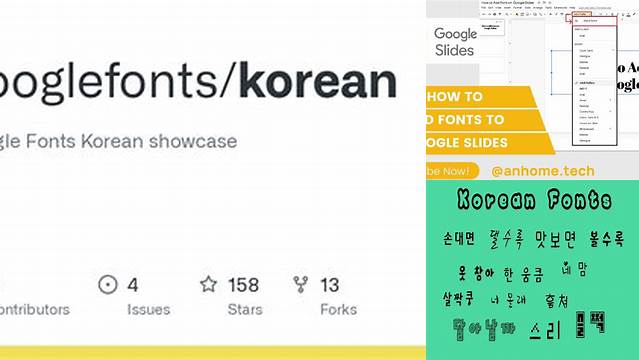
Korean Fonts In Google Slides: The Ultimate Guide
Hey guys! Ever found yourself needing to add a touch of Korean flair to your Google Slides presentation? Maybe you're giving a presentation on Korean culture, language, or even just want to spice up your slides with some cool-looking characters. Whatever the reason, finding the right Korean fonts for Google Slides can be a bit of a quest. But don't worry, we've got you covered! This guide will walk you through everything you need to know, from understanding Korean fonts to actually implementing them in your presentations. Let's dive in!
1. Understanding Korean Script and Fonts
Before we jump into specific fonts, it's crucial to understand the Korean writing system, Hangul. Unlike the Latin alphabet we're used to, Hangul is an alphabetic system grouped into syllable blocks. This means each character isn't just a single letter but a combination of consonants and vowels forming a syllable. Because of this structure, Korean fonts often have a distinct appearance and require careful consideration for readability and aesthetics. When choosing a Korean font, you need to consider its style (like serif or sans-serif), its weight (boldness), and how well it renders on different screen sizes. For example, a font that looks great on your computer might appear pixelated on a projector. Also, some fonts are better suited for body text while others are ideal for headings. Understanding these nuances will help you make the best choice for your presentation. Now, why is this important for Google Slides? Well, Google Slides uses web fonts, which means the fonts are loaded from Google's servers. Not all fonts support Korean characters, so you need to pick one that does! Let's move on to exploring the best options available.
2. Top Korean Fonts Available in Google Slides
Okay, so you're ready to jazz up your Google Slides with some Korean text, but which fonts should you use? Luckily, Google Slides has a decent selection of Korean fonts built right in! One of the most popular choices is Noto Sans KR. This font is part of Google's Noto font family, which aims to support all the world's scripts. It's a clean, sans-serif font that's super readable and works well for both headings and body text. Another great option is Nanum Gothic. This font has a slightly softer, more rounded feel, making it a good choice if you want a more friendly and approachable vibe. It's also available in various weights, giving you some flexibility in your design. Then there's Nanum Myeongjo, a serif font that adds a touch of elegance to your slides. Serif fonts are generally better suited for longer blocks of text, so consider using this one for your main content. And finally, don't forget Spoqa Han Sans Neo. This font is modern, geometric, and highly legible, making it ideal for professional presentations. Remember, the best font for you will depend on the overall style and tone of your presentation. So, experiment with a few different options and see what looks best!
3. How to Add Korean Fonts to Google Slides
4. Using Korean Fonts Effectively in Presentations
Okay, so you've got your Korean fonts all set up in Google Slides. Awesome! But just adding Korean text isn't enough; you need to use it effectively to make your presentation shine. One of the most important things is readability. Make sure your font size is large enough for your audience to see, especially if you're presenting in a large room. A good rule of thumb is to use at least 24 points for body text and 36 points for headings. Also, consider the contrast between your text and background colors. Dark text on a light background is usually the easiest to read. Next, think about the overall tone and style of your presentation. If you're giving a formal presentation, you might want to stick to a more traditional font like Nanum Myeongjo. But if you're going for a modern and casual vibe, Noto Sans KR or Spoqa Han Sans Neo might be a better choice. Don't be afraid to use different fonts for headings and body text to create visual interest. Just make sure the fonts you choose complement each other. And finally, remember that less is often more. Don't overcrowd your slides with too much text. Use bullet points, images, and other visuals to break up the text and keep your audience engaged. Let's look at some specific scenarios where you might use Korean fonts.
5. Scenarios for Using Korean Fonts in Google Slides
There are tons of situations where using Korean fonts in Google Slides can really enhance your presentation! If you're giving a presentation about Korean culture, using Korean fonts is a no-brainer. It adds authenticity and helps immerse your audience in the topic. For example, if you're talking about Korean history, you might use Nanum Myeongjo to give your slides a classic, scholarly feel. If you're presenting about modern Korean pop culture (like K-pop or K-dramas), you could use a more modern font like Spoqa Han Sans Neo to reflect the contemporary vibe. Another common scenario is when you're teaching Korean language. Using Korean fonts is essential for displaying Hangul characters correctly. You can use different fonts to illustrate different writing styles or to emphasize key vocabulary words. If you're creating a presentation for a Korean-speaking audience, using Korean fonts is obviously crucial. It shows that you've put in the effort to tailor your presentation to their language and culture. And finally, even if your presentation isn't specifically about Korea, adding a touch of Korean text can add a unique and eye-catching element. Just be sure to use it sparingly and appropriately! Let's delve into some common issues you might encounter.
6. Troubleshooting Common Issues with Korean Fonts in Google Slides
Okay, so you've tried adding a Korean font to your Google Slides, but something's not quite working right. Don't panic! There are a few common issues that people run into, and they're usually pretty easy to fix. One of the most common problems is that the Korean characters aren't displaying correctly. They might show up as boxes or question marks. This usually means that you've selected a font that doesn't support Korean characters. Double-check that the font you've chosen is actually a Korean font and that it's properly installed in Google Slides (as we discussed earlier). Another issue you might encounter is that the font looks pixelated or blurry. This can happen if you're using a font that's not optimized for web display or if the font size is too small. Try using a different font or increasing the font size to see if that helps. Sometimes, the font might look different on different computers or devices. This is because Google Slides uses web fonts, which means the font is loaded from Google's servers. If a particular font isn't available on a user's device, Google Slides will substitute it with a similar font. To avoid this issue, it's a good idea to test your presentation on different devices before you present it. If you're still having trouble, Google's help resources are always a great place to look for answers! Now, let's talk about some advanced techniques you can use.
7. Advanced Techniques for Using Korean Fonts
Ready to take your Korean font game to the next level? There are some cool advanced techniques you can use to make your presentations even more visually appealing and effective. One technique is to combine different Korean fonts to create visual contrast. For example, you could use a bold sans-serif font for your headings and a more elegant serif font for your body text. Just make sure the fonts you choose complement each other and don't clash. Another technique is to use font styling options like bold, italics, and underlining to emphasize certain words or phrases. But be careful not to overdo it! Too much styling can make your text look cluttered and hard to read. You can also adjust the line spacing and character spacing to improve readability. Wider line spacing can make your text look less dense and easier on the eyes, while adjusted character spacing can help prevent letters from crowding each other. Finally, consider using Korean calligraphy fonts for special occasions or to add a touch of traditional Korean art to your slides. These fonts often have a unique and artistic appearance, but they can be less legible than standard fonts, so use them sparingly. Let's move on to some tips for font pairing.
8. Pairing Korean Fonts with Other Fonts
Font pairing, guys, is an art! Combining Korean fonts with other fonts (especially Latin fonts) can create a visually harmonious and engaging presentation. But it's also easy to go wrong if you're not careful. The key is to choose fonts that complement each other in terms of style, weight, and overall feel. One general rule of thumb is to pair a sans-serif font with a serif font. For example, you could pair Noto Sans KR (sans-serif) with Times New Roman (serif) for a classic and professional look. If you're using a Korean font with a strong personality (like a calligraphy font), it's often best to pair it with a more neutral font for the Latin text. This will prevent the fonts from competing with each other. Also, consider the overall tone of your presentation. If you're going for a modern and minimalist look, you might want to pair a clean sans-serif Korean font with a clean sans-serif Latin font like Helvetica or Arial. If you're going for a more traditional or elegant look, you could pair a serif Korean font with a serif Latin font like Garamond or Georgia. Don't be afraid to experiment with different font pairings to see what works best for you. But always prioritize readability and visual harmony. Now, let's talk about where to find even more fonts.
9. Where to Find More Korean Fonts for Google Slides
While Google Slides has a decent selection of built-in Korean fonts, you might want to explore even more options to find the perfect font for your presentation. So, where can you find more Korean fonts? Well, one great place to start is Google Fonts. Google Fonts is a free library of over a thousand fonts, and it includes a variety of Korean fonts. Many of the fonts we've already discussed, like Noto Sans KR and Nanum Gothic, are available on Google Fonts. You can browse the Google Fonts website and filter by language (Korean) to see all the available options. Another good resource is Naver's Clova Font Library. Naver is a popular Korean internet portal, and their Clova Font Library offers a collection of high-quality Korean fonts that are free for personal and commercial use. You can download these fonts and use them in your Google Slides presentations, but you'll need to install them on your computer first. There are also several commercial font foundries that offer a wide range of Korean fonts for purchase. These fonts often have a more unique and professional look, but they can be more expensive. When choosing a font, make sure it's compatible with Google Slides and that you have the necessary licenses to use it. Let's talk about how licenses work.
10. Understanding Font Licensing for Google Slides
Font licensing, guys, can be a bit of a tricky topic, but it's important to understand the basics to avoid any legal issues. When you use a font in Google Slides, you're essentially using software, and that software is usually protected by copyright. This means that the font designer or foundry owns the rights to the font, and you need a license to use it legally. Most of the fonts available in Google Slides and Google Fonts have an Open Font License (OFL). This is a free and open-source license that allows you to use the font for personal and commercial purposes, including embedding it in documents and presentations. However, there may be some restrictions, such as the requirement to include the font's license information in your project. If you're using a font from a commercial foundry, you'll usually need to purchase a commercial license. These licenses typically allow you to use the font for a wider range of purposes, but they may have restrictions on the number of users or the size of the project. Always read the font's license agreement carefully before using it to make sure you're complying with the terms. If you're unsure about the licensing terms, it's always best to contact the font designer or foundry directly. Now, let's compare different Korean font styles.
11. Comparing Different Korean Font Styles
Korean fonts, just like Latin fonts, come in a variety of styles, each with its own unique look and feel. Understanding these styles can help you choose the best font for your presentation. The two main categories of Korean fonts are serif and sans-serif. Serif fonts have small decorative strokes (called serifs) at the ends of the letterforms, while sans-serif fonts don't. Serif fonts are often considered more traditional and elegant, while sans-serif fonts are seen as more modern and clean. Within these categories, there are many variations. For example, some serif fonts have a classic, calligraphic look, while others are more geometric and contemporary. Sans-serif fonts can range from very simple and minimalist to bold and attention-grabbing. There are also display fonts, which are designed for headlines and other large text. These fonts often have a more decorative or stylized appearance. And then there are calligraphy fonts, which mimic the look of traditional Korean calligraphy. When choosing a font style, consider the overall tone and style of your presentation. For formal presentations, a classic serif or sans-serif font might be the best choice. For more casual presentations, you could use a bolder or more stylized font. Let's move on to font sizes and readability.
12. Font Sizes and Readability in Korean Slides
Font size is crucial for readability, especially in a presentation setting. If your audience can't easily read your text, they're going to have a hard time following your presentation. So, what's the ideal font size for Korean text in Google Slides? Well, it depends on a few factors, such as the size of the room, the distance from the screen, and the font you're using. But as a general guideline, you should aim for a minimum font size of 24 points for body text and 36 points for headings. If you're presenting in a large room, you might need to go even larger. It's also important to consider the line height (the vertical space between lines of text). If your line height is too small, the text can look crowded and hard to read. A good rule of thumb is to set the line height to about 1.5 times the font size. The font style itself can also affect readability. Some fonts are simply more legible than others. For example, a clean and simple sans-serif font like Noto Sans KR is generally easier to read than a highly stylized calligraphy font. Always test your presentation on different screens and devices to make sure your text is readable from all angles. Let's look at using Korean in bullet points and lists.
13. Using Korean in Bullet Points and Lists
Bullet points and lists are a great way to break up text and make your slides more visually appealing. But when you're using Korean text, there are a few things to keep in mind to ensure readability and clarity. First, make sure your bullet points are aligned correctly with the Korean text. Sometimes, the default bullet point alignment in Google Slides doesn't work well with Korean characters. You may need to adjust the alignment manually to ensure that the bullet points are visually connected to the corresponding text. Also, consider using different bullet point styles to add visual interest. Google Slides offers a variety of bullet point options, including circles, squares, diamonds, and arrows. You can also use Korean characters as bullet points, such as the circle character (○) or the triangle character (△). When creating lists, be consistent with your formatting. Use the same font, font size, and line spacing for all the items in the list. If you're using numbers or letters in your list, make sure they're also displayed correctly in Korean. For example, you might use Korean numerals (하나, 둘, 셋) instead of Arabic numerals (1, 2, 3). Let's move on to using Korean in charts and graphs.
14. Incorporating Korean Text in Charts and Graphs
Charts and graphs are essential for visualizing data in presentations. But if you're presenting data about Korea or to a Korean-speaking audience, you'll likely need to incorporate Korean text into your charts and graphs. This might include labels, titles, legends, and data points. When using Korean text in charts and graphs, readability is key. Choose a font that's clear and easy to read, even at small sizes. Avoid using highly stylized or decorative fonts, as they can be difficult to decipher in a chart. Also, make sure your text labels are properly aligned and spaced. Overlapping or crowded labels can make your chart look cluttered and confusing. Consider using Korean units of measurement and number formats when presenting data about Korea. For example, you might use the Korean currency (won) or Korean units of distance (kilometers) instead of their Western equivalents. If your chart includes multiple data series, use different colors and patterns to distinguish them. Make sure the colors you choose are visually distinct and that they don't clash with the Korean text. Finally, always provide a clear and concise title for your chart or graph in Korean. This will help your audience understand the purpose of the visualization and the key takeaways. Now, let's talk about using Korean in image captions and labels.
15. Using Korean in Image Captions and Labels
Images can add a lot of visual interest to your Google Slides presentations, but they often need captions or labels to provide context and information. If you're using images related to Korea or presenting to a Korean-speaking audience, you'll want to use Korean text in your captions and labels. When writing captions in Korean, keep them short and to the point. A good caption should briefly describe the image and explain its relevance to your presentation. Use clear and concise language, and avoid using jargon or technical terms that your audience might not understand. If you're labeling parts of an image, use arrows or lines to connect the labels to the corresponding areas. Make sure the labels are positioned close enough to the image elements so that your audience can easily see the connection. Use a readable font size for your captions and labels. If the text is too small, it will be difficult to read, especially if the image is complex. Choose a font that's clear and easy to read, even at small sizes. Consider using different font styles or colors to distinguish captions from labels. For example, you might use a bold font for captions and a regular font for labels. Let's move on to translating Latin text to Korean for slides.
16. Translating Latin Text to Korean for Slides
Sometimes, you might need to translate Latin text (like English) into Korean for your Google Slides presentation. This could be for a variety of reasons, such as presenting to a Korean-speaking audience or including Korean quotes or phrases in your slides. When translating text, it's important to use a reliable translation tool or service. Google Translate is a convenient option for quick translations, but it's not always accurate, especially for complex sentences or technical terminology. For more accurate translations, consider using a professional translation service or a Korean-English bilingual speaker. When you've got your translation, proofread it carefully to make sure it's correct and natural-sounding. Korean grammar and sentence structure can be quite different from English, so a literal translation might not always make sense. Pay attention to the context of the text you're translating. The same word or phrase can have different meanings depending on the context. Make sure your translation accurately reflects the intended meaning. If you're translating a long passage of text, break it up into smaller chunks to make it easier to read on a slide. Use bullet points, lists, or headings to organize the information. Now, let's talk about cultural considerations when using Korean fonts.
17. Cultural Considerations When Using Korean Fonts
When using Korean fonts in Google Slides, it's important to be aware of cultural considerations. Different fonts can convey different tones and meanings, so it's crucial to choose a font that's appropriate for your audience and the context of your presentation. For example, using a formal serif font like Nanum Myeongjo might be suitable for a presentation about Korean history or literature, while a more modern sans-serif font like Noto Sans KR might be better for a presentation about Korean pop culture. Avoid using fonts that are difficult to read or that have negative connotations in Korean culture. Some fonts might be associated with specific historical periods or social groups, so it's important to do your research before using them. When translating text into Korean, be aware of honorifics and levels of formality. Korean has a complex system of honorifics that are used to show respect to people of higher status or age. Make sure your translations are appropriate for your audience and the situation. Also, consider the cultural context of your presentation. If you're presenting to a Korean audience, you might want to include information about Korean culture, customs, and etiquette. This will show your audience that you're respectful of their culture and that you've taken the time to learn about them. Let's delve into font psychology and its impact.
18. Font Psychology and Its Impact on Your Korean Slides
Did you know that fonts can actually evoke emotions and influence perceptions? This is the field of font psychology, and it's something to consider when choosing Korean fonts for your Google Slides. Different fonts have different personalities, and they can communicate different messages to your audience. For example, serif fonts are often seen as traditional, reliable, and authoritative, while sans-serif fonts are perceived as modern, clean, and friendly. Bold fonts convey strength and confidence, while light fonts suggest elegance and sophistication. When choosing a font, think about the message you want to convey and the emotions you want to evoke in your audience. If you want to appear trustworthy and knowledgeable, a classic serif font might be a good choice. If you want to come across as innovative and approachable, a modern sans-serif font might be better. Also, consider the overall design of your slides. Your font should complement the colors, images, and layout of your presentation. A font that clashes with the rest of your design can be distracting and undermine your message. Let's discuss how font choice affects accessibility.
19. Ensuring Accessibility with Korean Fonts in Slides
Accessibility is a crucial consideration when creating any presentation, including those with Korean fonts. You want to make sure that your slides are easily accessible to everyone in your audience, regardless of their abilities or disabilities. When it comes to fonts, readability is the key to accessibility. Choose a font that's clear and easy to read, even for people with visual impairments. Avoid using highly stylized or decorative fonts, as they can be difficult to decipher. Use a sufficiently large font size (at least 24 points for body text and 36 points for headings) to ensure that your text is legible from a distance. Also, pay attention to color contrast. Use a dark font color on a light background (or vice versa) to make your text stand out. Avoid using colors that are difficult to distinguish, such as blue and purple. Provide alternative text for images and other visual elements on your slides. This will allow people who use screen readers to understand the content of your presentation. Use clear and concise language in your slides. Avoid using jargon or technical terms that your audience might not understand. Let's explore common Korean typography mistakes and how to avoid them.
20. Common Korean Typography Mistakes and How to Avoid Them
Just like with any language, there are some common typography mistakes that people make when using Korean fonts. Being aware of these mistakes can help you avoid them and create more professional-looking slides. One common mistake is using incorrect character spacing. Korean characters are grouped into syllable blocks, and the spacing between these blocks is important for readability. If the spacing is too tight or too loose, the text can look cluttered or disjointed. Pay attention to the line height as well. Insufficient line height can make text look cramped. Another mistake is using too many different fonts on a single slide. This can make your presentation look messy and unprofessional. Stick to a maximum of two or three fonts per slide, and make sure they complement each other. Avoid using fonts that are too small or too thin, as they can be difficult to read, especially from a distance. Use a font size that's appropriate for the size of the room and the distance from the screen. Pay attention to color contrast. Using colors that are too similar can make your text blend into the background and become unreadable. Let's consider the future of Korean fonts in presentations.
21. The Future of Korean Fonts in Presentations
The world of Korean fonts is constantly evolving, with new fonts and technologies emerging all the time. So, what does the future hold for Korean fonts in presentations? One trend we're seeing is the increasing availability of high-quality Korean web fonts. As more and more fonts are optimized for web display, it's becoming easier to use Korean fonts in online presentations and web-based platforms like Google Slides. We're also seeing the development of more diverse and expressive Korean fonts. Designers are experimenting with new styles and techniques to create fonts that are both functional and visually appealing. The use of variable fonts is also becoming more popular. Variable fonts allow you to adjust various font parameters, such as weight, width, and slant, giving you greater flexibility and control over your typography. Another trend is the integration of Korean fonts with AI and machine learning. AI-powered tools can help you choose the best font for your presentation and even generate new fonts based on your specific needs and preferences. Overall, the future of Korean fonts in presentations looks bright. With ongoing advancements in technology and design, we can expect to see even more beautiful and accessible Korean fonts in the years to come. Let's explore font rendering across different platforms.
22. Understanding Font Rendering Across Different Platforms
Font rendering refers to how fonts are displayed on different devices and operating systems. It's important to understand how font rendering works because the appearance of your Korean fonts in Google Slides can vary depending on the platform your audience is using. Different operating systems (like Windows, macOS, and Android) use different font rendering engines. This means that the same font can look slightly different on different platforms. For example, a font might look sharper and clearer on macOS than on Windows. Web browsers also have their own font rendering engines, which can further affect the appearance of your fonts. Some browsers render fonts more smoothly than others, and some browsers support certain font formats better than others. The resolution of the screen can also affect font rendering. High-resolution screens generally display fonts more sharply and clearly than low-resolution screens. When choosing Korean fonts for your Google Slides, it's important to test your presentation on different platforms to see how the fonts look. This will help you ensure that your presentation looks good on as many devices as possible. Let's consider using custom Korean fonts in Google Slides.
23. Using Custom Korean Fonts in Google Slides
While Google Slides offers a good selection of built-in Korean fonts, you might want to use custom fonts that aren't available in the Google Slides font library. This could be for branding purposes or simply to give your presentation a unique look and feel. To use custom Korean fonts in Google Slides, you'll first need to upload them to your Google Drive. Google Slides supports a variety of font formats, including TTF (TrueType Font) and OTF (OpenType Font). Once you've uploaded your fonts, you can add them to your Google Slides presentation by going to the font dropdown menu and selecting "More fonts." In the "More fonts" window, click on the "Upload fonts" tab. From there, you can select the fonts you want to add from your Google Drive. Keep in mind that using custom fonts can affect the accessibility of your presentation. If your audience doesn't have the custom fonts installed on their devices, Google Slides will substitute them with a default font. This could change the appearance of your presentation and make it less readable. Consider embedding the custom fonts in your presentation to ensure that they display correctly for everyone. Some font licenses may not allow embedding, so be sure to check the font's license agreement before using it. Let's look at using fallback fonts for Korean text.
24. Implementing Fallback Fonts for Korean Text
Fallback fonts are fonts that are used as a backup in case the primary font is not available on a user's system or device. When using Korean fonts in Google Slides, it's a good idea to implement fallback fonts to ensure that your text displays correctly for everyone. There are a few reasons why a font might not be available. The user might not have the font installed on their computer, or their web browser might not support the font format. In these cases, the browser will try to use a fallback font instead. You can specify fallback fonts in CSS (Cascading Style Sheets) using the font-family
property. For example, you could specify Noto Sans KR as your primary font and a generic sans-serif font as your fallback font. If the user's system doesn't have Noto Sans KR installed, it will use a sans-serif font instead. When choosing fallback fonts, it's important to select fonts that are similar in style and weight to your primary font. This will help maintain the overall look and feel of your presentation. You can also use Unicode ranges to specify different fonts for different character sets. This can be useful if you're using a font that doesn't support all the Korean characters. Let's consider optimizing Korean fonts for web display.
25. Optimizing Korean Fonts for Web Display
When using Korean fonts in Google Slides, it's important to optimize them for web display. This will ensure that your fonts look sharp and clear on different screens and devices. One key optimization technique is to use web fonts. Web fonts are fonts that are specifically designed for use on the web. They're typically delivered in formats like TTF, OTF, WOFF, and WOFF2. Google Slides uses web fonts, so you don't need to worry about installing fonts on your computer. However, it's still important to choose fonts that are well-optimized for web display. Some fonts render better than others on different browsers and operating systems. Consider using hinting to improve font rendering. Hinting is a technique that adjusts the shape of the font at small sizes to make it look sharper. Many web fonts include hinting information. Also, use font smoothing techniques to reduce pixelation. Font smoothing can make your fonts look smoother and more legible, especially on low-resolution screens. Finally, be sure to test your presentation on different devices and browsers to see how your fonts look. This will help you identify any rendering issues and make adjustments as needed. Let's talk about the impact of font weight on visual hierarchy.
26. The Impact of Font Weight on Visual Hierarchy in Korean Slides
Font weight refers to the thickness of the strokes in a font. It's an important factor to consider when creating visual hierarchy in your Korean slides. Visual hierarchy is the arrangement of elements on a slide to guide the viewer's eye and highlight important information. Font weight can be used to create contrast between different elements on a slide. For example, you can use a bold font weight for headings to make them stand out from the body text. You can also use different font weights to indicate the relative importance of different pieces of information. For example, you might use a heavier font weight for key points and a lighter font weight for supporting details. When using font weight to create visual hierarchy, it's important to be consistent. Use the same font weights for similar elements throughout your presentation. This will help your audience understand the structure of your slides and the relationships between different pieces of information. Also, be careful not to use too many different font weights on a single slide. This can make your presentation look cluttered and confusing. Stick to a maximum of two or three different font weights. Let's explore using animations and transitions with Korean fonts.
27. Using Animations and Transitions with Korean Fonts
Animations and transitions can add visual interest to your Google Slides presentation and help keep your audience engaged. When using Korean fonts, it's important to consider how animations and transitions can affect the readability and appearance of your text. When animating Korean text, choose animations that are subtle and unobtrusive. Avoid using animations that are too flashy or distracting, as they can make your text difficult to read. Simple animations like fade-in, fade-out, and slide-in are often the most effective. Also, be mindful of the speed of your animations. Animations that are too fast can be jarring, while animations that are too slow can be boring. Choose a speed that's comfortable for your audience to follow. When using transitions between slides, choose transitions that are consistent with the overall tone and style of your presentation. For formal presentations, subtle transitions like fade or dissolve are often the best choice. For more casual presentations, you might use more dynamic transitions like push or wipe. Avoid using too many different transitions in your presentation. This can make your presentation look unprofessional and distracting. Stick to a maximum of two or three different transitions. Let's talk about presenting Korean effectively to international audiences.
28. Presenting Korean Effectively to International Audiences
If you're presenting to an international audience, it's especially important to consider how you're using Korean fonts in your Google Slides. You want to make sure that your presentation is clear, engaging, and culturally sensitive. If your audience doesn't speak Korean, you'll need to provide translations for any Korean text in your slides. You can do this by adding English subtitles or using a bilingual slide design. Use a clear and readable font for your English translations. Make sure the font size is large enough for your audience to read easily. When using Korean text, be mindful of cultural differences in typography. Some font styles that are common in Korea might not be familiar to international audiences. Consider using a font that's widely recognized and easy to read. If you're presenting about Korean culture, explain any unfamiliar terms or concepts to your audience. Provide context and background information to help them understand your presentation. Also, be respectful of Korean customs and traditions. Avoid using any language or imagery that could be offensive or insensitive. Let's consider best practices for Korean slide design.
29. Best Practices for Korean Slide Design
Creating effective slides with Korean fonts involves following some best practices in design. Your goal is to have clear, engaging, and visually appealing slides. Keep your slides clean and uncluttered. Avoid overcrowding them with too much text or too many images. Use bullet points and lists to break up text and make it easier to read. Choose a consistent color scheme for your slides. Use colors that complement each other and create a visually harmonious look. Make sure the colors you choose provide sufficient contrast between text and background. Use high-quality images that are relevant to your content. Images can help illustrate your points and make your slides more engaging. Be sure to cite your sources for any images you use. Use visual hierarchy to guide your audience's eye and highlight important information. Use font weight, size, and color to create contrast and emphasize key points. Use white space effectively to create breathing room and improve readability. White space can help make your slides look less cluttered and more professional. Check the overall flow of your presentation. Make sure your slides are organized in a logical order and that the transitions between slides are smooth. Let's discuss common mistakes to avoid in Korean slides.
30. Common Mistakes to Avoid in Korean Slides
Creating effective slides with Korean fonts involves avoiding some common mistakes that can detract from your presentation. One common mistake is using too much text on a single slide. This can make your slides look crowded and overwhelming. Stick to the key points and use bullet points and lists to summarize information. Another mistake is using too many different fonts or font styles. This can make your presentation look messy and unprofessional. Stick to a maximum of two or three fonts and use them consistently. Avoid using fonts that are difficult to read or that don't display Korean characters correctly. Choose fonts that are clear, legible, and optimized for web display. Don't use low-resolution images or images that are stretched or distorted. Use high-quality images that are properly sized for your slides. Avoid using animations and transitions that are too flashy or distracting. These can take away from your message and make your presentation look unprofessional. Don't forget to proofread your slides for errors in spelling and grammar. Even small errors can undermine your credibility. And finally, don't make your slides too text-heavy. Use a mix of text, images, charts, and graphs to keep your audience engaged.